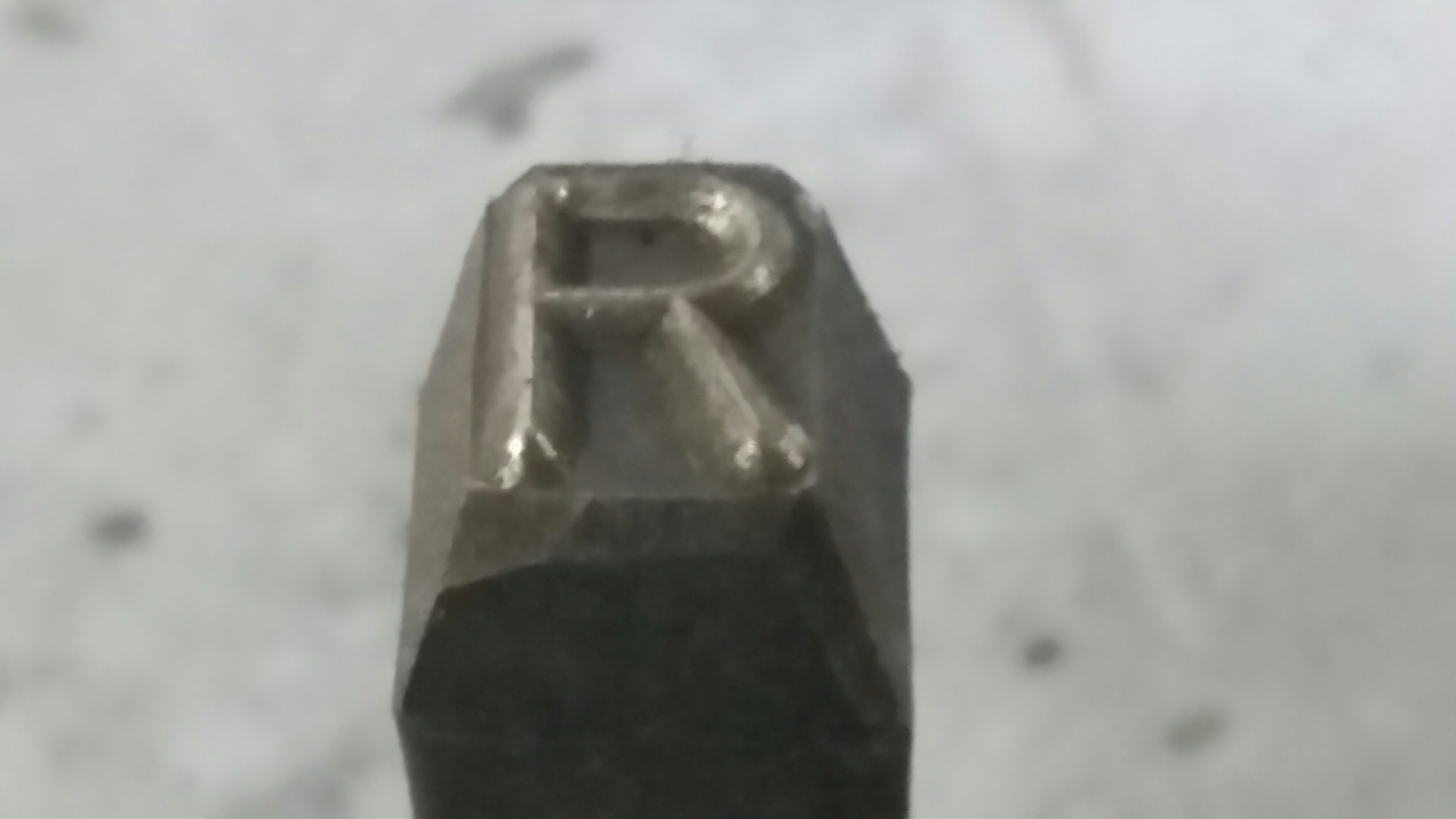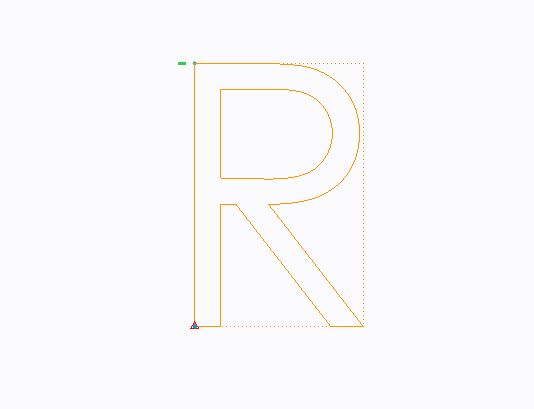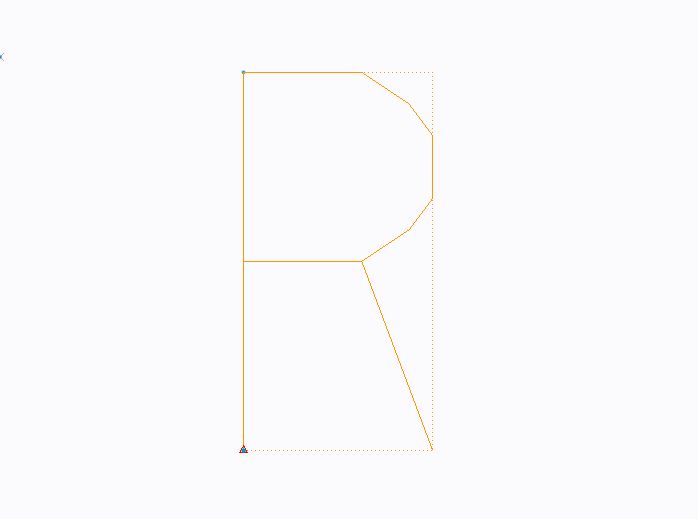
In sketch is it possible to get windows text fonts as single thickness?
We put engraving in our dies.
Unfortunately we have to match our engraving characters with metal hand stamp characters because over the die life the CNC'd characters lose their crispness.
Knowing the type of character used by the hand stamp I am wondering if it would be possible to use this text in our dies. The only problem is that the windows fonts are double line walled and we need this to just be single walled (or no volume).
Creo's default text CNC's much better than our curve created match of the Gothic hand stamps. The problem is that they don't match the hand stamps.
Could anyone point us in a direction that would allow us to place text created stamp characters that match the hand stamps?
I do not think that usage of Creo font leads you into troubles. You can test existing fonts to get some experience.
The trouble from your point of view is fact that Creo font are composed from straight lines (you cannot define arcs and splines to get smooth character outlines).
Example of Creo font source file:
Information concerning Creo fonts:
See attached PDF file, start on page 119.
If you want to create your own font you have to take a paper with square grid and sketch your characters using straight lines. Then you have to described pen movement using m and d commands. There is no software editor available (I mean free of charge software).
At the end you have to translate source file, put it into appropriate directory and also create ndx file.
Conclusion: Creation of Creo font is VERY complicated and time consuming.
Paul,
please can you attach some picture of your hand stamp. Also can you explain the term "windows fonts are double line walled" ?
Martin,
Here is what the hand stamp looks like.
Here is what the supposed correct true font looks like in Creo.
The hand stamp comes to a sharp edge and is angled back from this single edge.
The true font equivalent has thickness all around the letter. This will not machine correctly.
Creo does have fonts that don't have the thickness as shown below.
This is what I need, but I need the true type font to match the hand stamp font we have.
Hi Paul,
since most Windows fonts are true type fonts (.ttf) they are typically outline and fill (and varying thicknesses).
What you are looking for is a 'stroke font'.
You can find some stroke fonts inside Creo as well, like the ISOFONT...